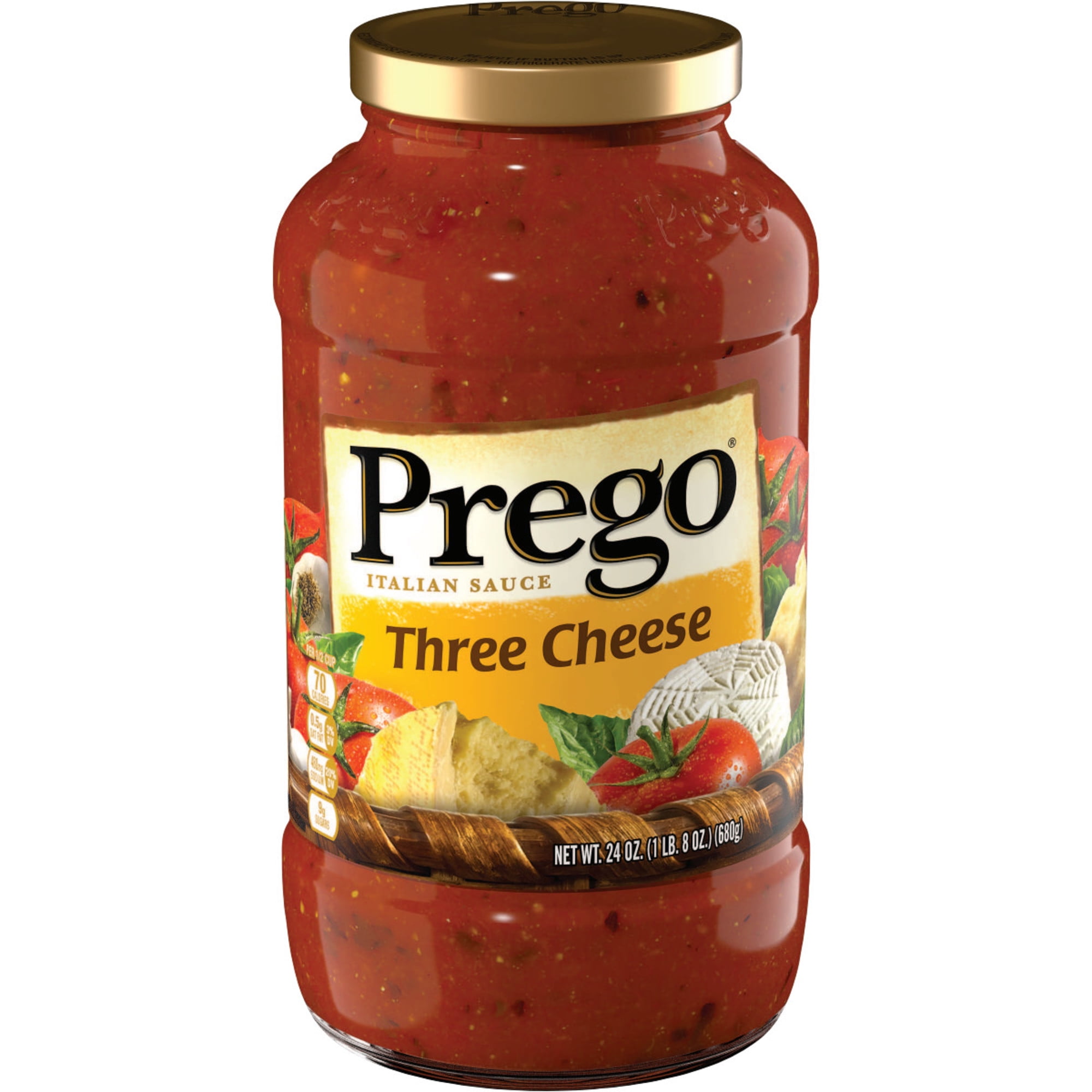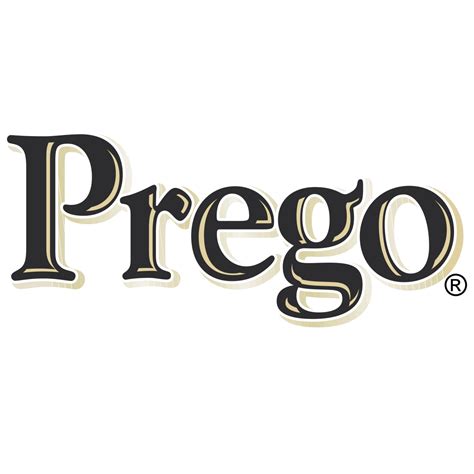
Prego Sauce Font
Prego Sauce Font - Goudy handtooled font family was designed by charles h. Get to know the prego font family and download it for free to use in your project. Web oct 30, 2015 at 13:04. Edited version of goudy handtooled, designed by fredric w. Votes, rated based on results identification. Goudy in 1922 and now digitized by major.
Goudy handtooled font family was designed by charles h. Goudy in 1922 and now digitized by major. Edited version of goudy handtooled, designed by fredric w. Web oct 30, 2015 at 13:04. Votes, rated based on results identification. Get to know the prego font family and download it for free to use in your project.
Votes, rated based on results identification. Get to know the prego font family and download it for free to use in your project. Web oct 30, 2015 at 13:04. Goudy in 1922 and now digitized by major. Goudy handtooled font family was designed by charles h. Edited version of goudy handtooled, designed by fredric w.
Web oct 30, 2015 at 13:04. Get to know the prego font family and download it for free to use in your project. Edited version of goudy handtooled, designed by fredric w. Goudy in 1922 and now digitized by major. Votes, rated based on results identification.
Get to know the prego font family and download it for free to use in your project. Edited version of goudy handtooled, designed by fredric w. Votes, rated based on results identification. Web oct 30, 2015 at 13:04. Goudy handtooled font family was designed by charles h.
Goudy in 1922 and now digitized by major. Edited version of goudy handtooled, designed by fredric w. Goudy handtooled font family was designed by charles h. Votes, rated based on results identification. Web oct 30, 2015 at 13:04.
Web oct 30, 2015 at 13:04. Goudy handtooled font family was designed by charles h. Edited version of goudy handtooled, designed by fredric w. Get to know the prego font family and download it for free to use in your project. Votes, rated based on results identification.
Get to know the prego font family and download it for free to use in your project. Web oct 30, 2015 at 13:04. Votes, rated based on results identification. Goudy in 1922 and now digitized by major. Goudy handtooled font family was designed by charles h.
Edited version of goudy handtooled, designed by fredric w. Web oct 30, 2015 at 13:04. Get to know the prego font family and download it for free to use in your project. Goudy handtooled font family was designed by charles h. Goudy in 1922 and now digitized by major.
Get to know the prego font family and download it for free to use in your project. Goudy in 1922 and now digitized by major. Web oct 30, 2015 at 13:04. Votes, rated based on results identification. Edited version of goudy handtooled, designed by fredric w.
Web oct 30, 2015 at 13:04. Edited version of goudy handtooled, designed by fredric w. Goudy handtooled font family was designed by charles h. Goudy in 1922 and now digitized by major. Votes, rated based on results identification.
Goudy in 1922 and now digitized by major. Votes, rated based on results identification. Goudy handtooled font family was designed by charles h. Edited version of goudy handtooled, designed by fredric w. Get to know the prego font family and download it for free to use in your project.
Edited Version Of Goudy Handtooled, Designed By Fredric W.
Goudy in 1922 and now digitized by major. Get to know the prego font family and download it for free to use in your project. Votes, rated based on results identification. Web oct 30, 2015 at 13:04.